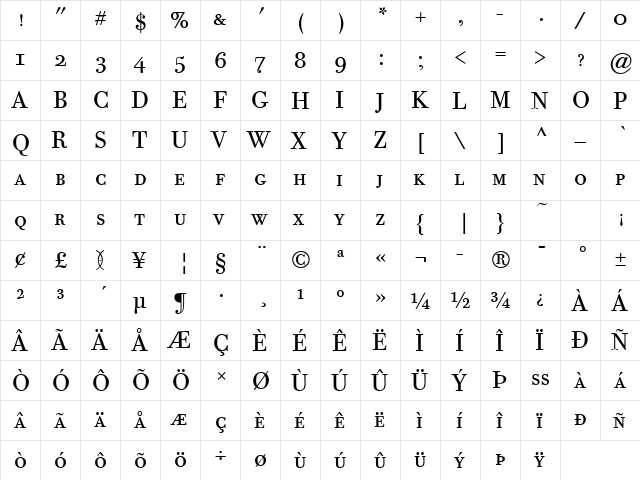
Bodoni Twelve SC ITC TT Book
Design Context for Bodoni Twelve SC ITC TT Typeface
Bodoni Twelve SC ITC TT offers clean, dependable letterforms without strong stylistic allegiance, making it a practical choice for designers who need flexibility.